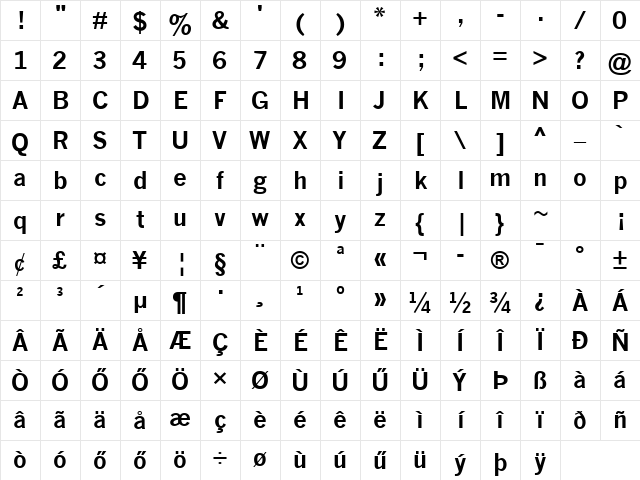
Huni_News Gothic MT Bold takes a clean, functional approach - its unadorned letterforms prioritise legibility and work reliably across screen and print environments. Its bold stroke weight gives it real presence on the page.
Font Pairing: Use Huni_News Gothic MT Bold for headlines alongside a lighter-weight sans or serif for body copy to establish clear visual hierarchy.
Pro Tip: Use Huni_News Gothic MT Bold for UI labels, navigation, and short-form body copy where clean legibility is the priority.